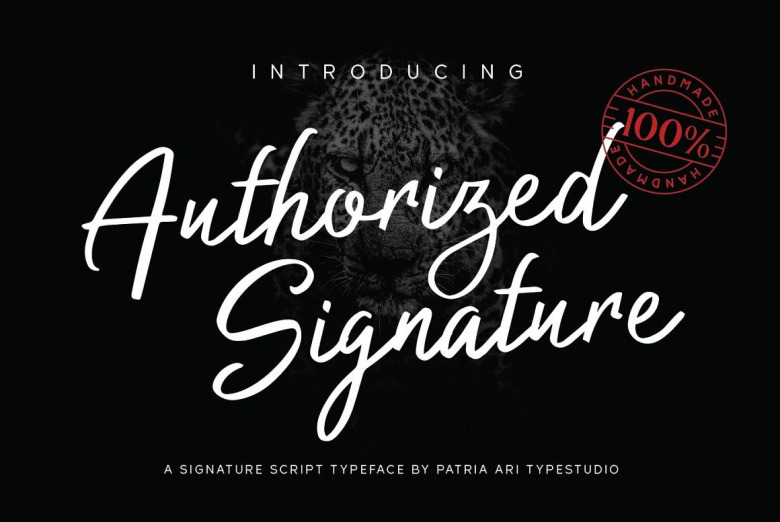
Authorized Signature Font
Authorized Signature Font is a sophisticated handwritten signature-style script type with elegant shapes in every glyphs. Suitable for any design needs : logo, branding, modern advertising design, logos, poster quote, book / cover Title, editorial design, website / blog, card, t-shirts, and any hand-lettered needs.
Authorized Signature Script Font